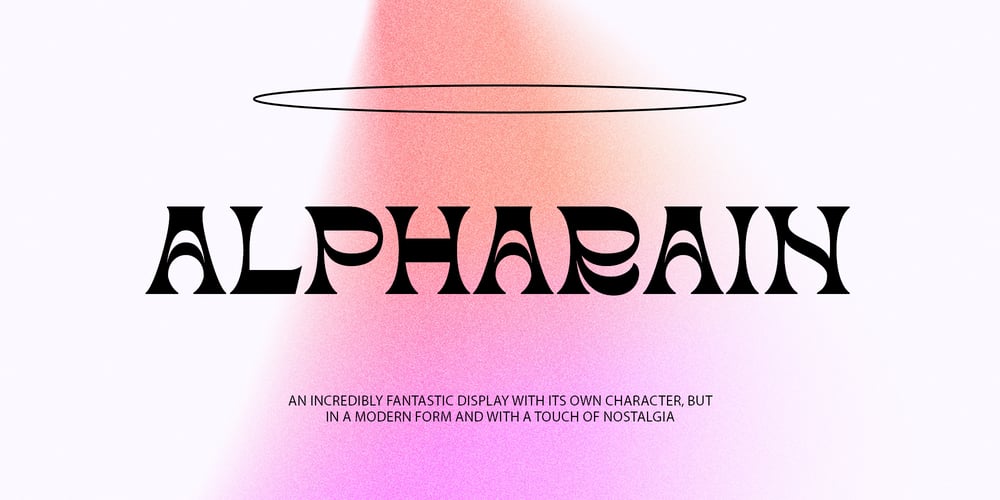
Alpharain Font Family was designed by Dmitrii Chirkov and published by Supfonts. Alpharain contains 1 styles and family package options. Alpharain is a modern and at the same time absolutely incredible Serif with reverse contrast. A bright font will give the mood to your projectThanks so much for checking out my shop, and please get in touch if you have any questions!Alpharain Font Features:- Full Set of standard alphabet and punctuation- Handwritten ligatures- PUA Encoded – no special software needed to access extra characters- Multilingual Characters AÁĂÂÄÀĀĄÅÃÆBCĆČÇĊDÐĎĐEÉĚÊËĖÈĒĘẼFGĞĢĠḠHĦIIJÍÎÏİÌĪĮĨJKĶLĹĽĻŁMNŃŇŅÑ OÓÔÖÒŐŌØÕŒPÞQRŔŘŖSŚŠŞȘẞTŤŢȚUÚÛÜÙŰŪŲŮŨVWẂŴẄẀXYÝŶŸỲỸZŹŽŻ aáăâäàāąåãæbcćčçċdðďđeéěêëėèēęẽfgğģġḡhħiıíîïìijīįĩjȷkķlĺľļłmnńňņñoóôöòőōøõœpþ qrŕřŗsśšşșßtťţțuúûüùűūųůũvwẃŵẅẁxyýŷÿỳỹzźžż